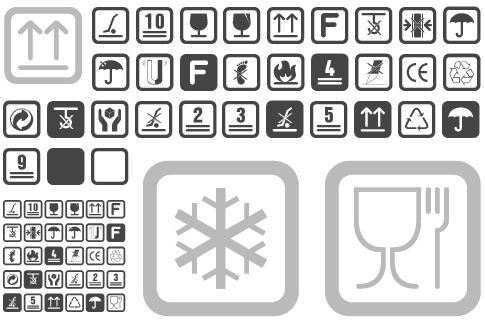
NoticeStd by Denis A Serikov is a free shipping and handling dingbat font built from a set of simplified pictograms enclosed by sturdy, rounded square frames. Broad silhouettes and clean cutouts make every symbol feel direct and familiar.
A shipping service or warehouse supplier could adopt these marks across packaging and branding, since their framed shapes closely resemble standard handling labels. They are also suited to warehouse signage and instruction sheets, with clear imagery for hazards, disposal, weather protection, and product care. In digital logistics interfaces, the collection can become a compact visual vocabulary for the practical world of storage and transport.